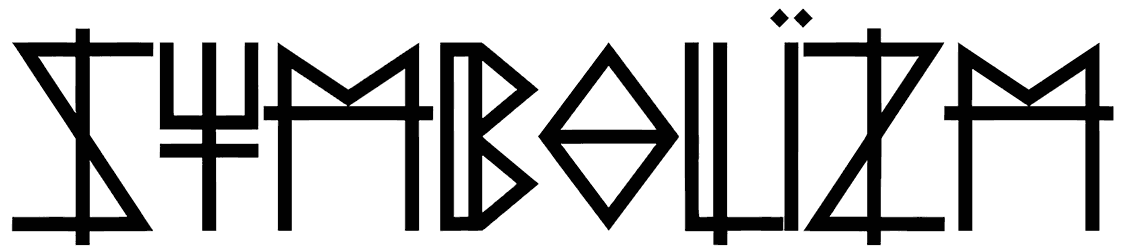
Symbolïzm Font
Symbolïzm, without lowercase letters, is an epitome of fancy font. Designers looking to scribble paintings of primitives have assembled to provide such an astonishing font. Without high readability, it can dedicate a stunning style to signs and brands.
This geometric font can be utilized in designing letterheads, business cards, special events, and invitations. In addition, projects need that the amount of complexity can rely on the timeless font.